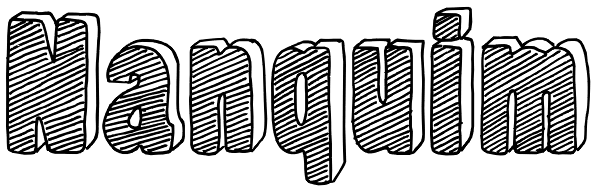
Nanquim
Nanquim is a versatile font, available in three sketchy options. At display sizes the line art is very eye-catching. At smaller sizes it turns out like textured faces. Always with a pleasant handmade feel. Nanquim characters were hand drawn with pen...
Nanquim
Nanquim Stamp
Nanquim Dark